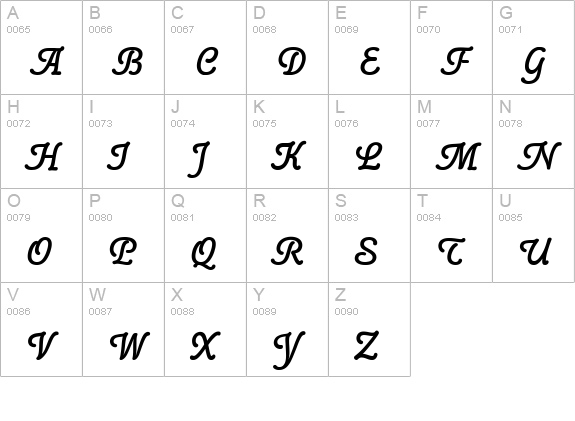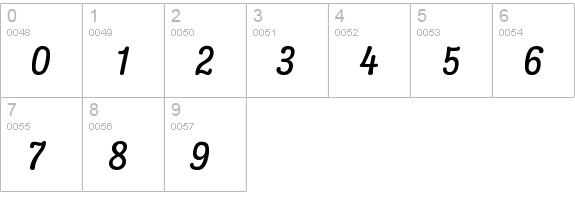
Poppl College (R) 2 Medium is a balanced, medium-weight variant in the Poppl typeface family \xE2\x80\x94 well suited to sub-headlines, navigation, and balanced editorial work.
Poppl College (R) 2 Medium font is a modern and versatile typeface that exudes sophistication and elegance. With its clean lines and balanced proportions, this font is perfect for a wide range of design projects, from branding to editorial layouts. The medium weight adds a touch of authority and professionalism to any text. One of the best things about Poppl College (R) 2 Medium font is that it is freely available to download at FontsMarket.com. This means that you can easily access this high-quality font without any cost, making it a valuable resource for designers, students, and anyone in need of a premium typeface for their projects. Whether you're working on a website, advertisement, or print material, Poppl College (R) 2 Medium font will help you achieve a polished and refined look. Its versatility and timeless appeal make it a must-have in your font library. Download it for free today and elevate your designs to the next level.